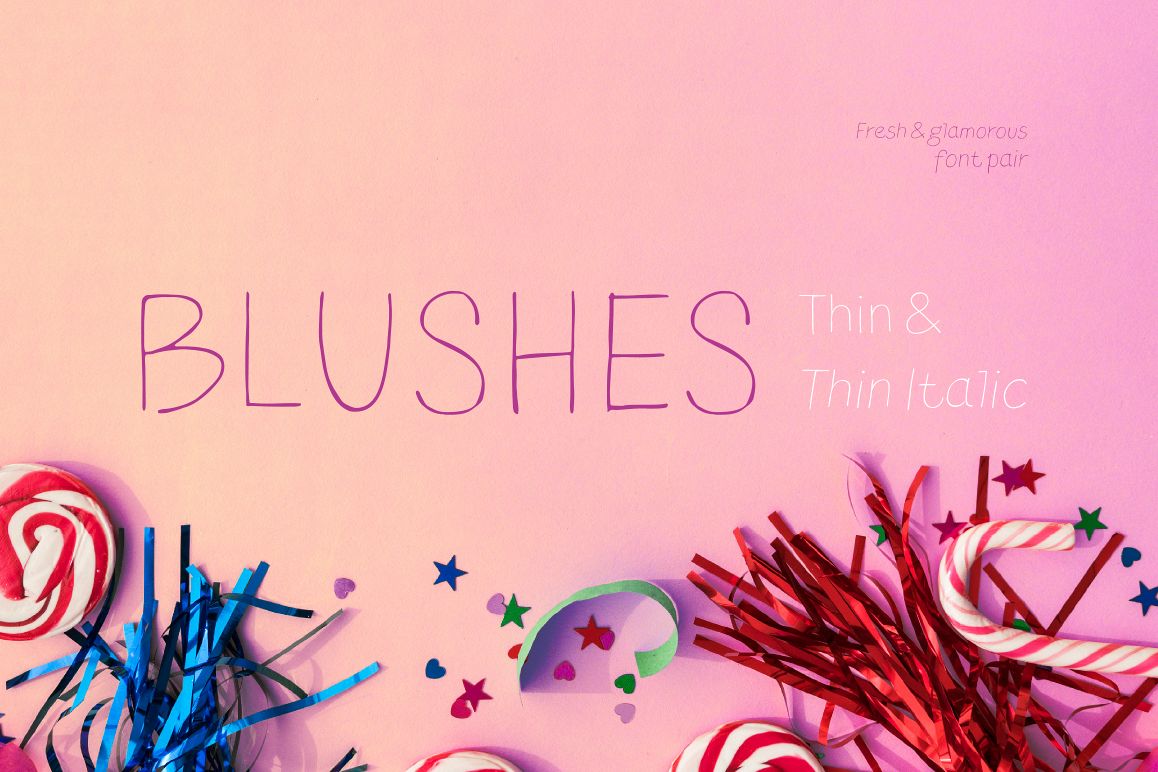
Blushes — Thin & Thin Italic
Blushes Thin Italic
Blushes Thin
What happens if you mix a little bit of glamour and a tad of hooliganism? Our hipster font pair Blushes Thin & Blushes Thin Italic!
Sometimes we only need a few faces to make our creative ideas come to live. For this specific purpose we've split some of our popular font families into all-sufficient font pairs.
Glitter, flashing cameras and fame — now you know how to deal with this stuff! Freshness and brightness is what defines the Blushes font, which is created for beauty and fashion industries. Blushes is a vibrant part of you that emphasizes your character.
Glamorous makeup and trendy clothes are now harmoniously enhanced with our fonts, which follow every trend of both industries. Blushes can do it all: create edgy prints on T-shirts, use it for beauty products packaging design and fashion magazines layouts as well as advertising brochures.
Blushes works perfectly in the contemporary digital environment. For instance, it is great for an edgy designer clothes on-line store's website layout, as well as for a beauty products manufacturer's app.